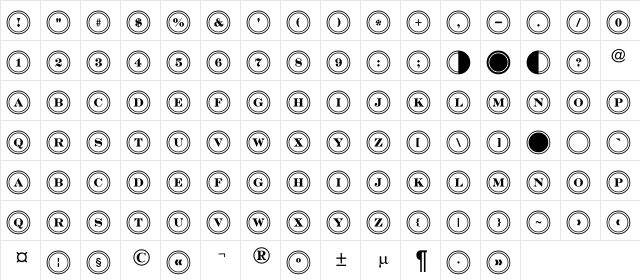
a_DiscoSerifDbl Regular
Design Context for a_DiscoSerifDbl Typeface
a_DiscoSerifDbl brings classic typographic sensibility to the table — its serifs and measured letterforms reflect centuries of print heritage.